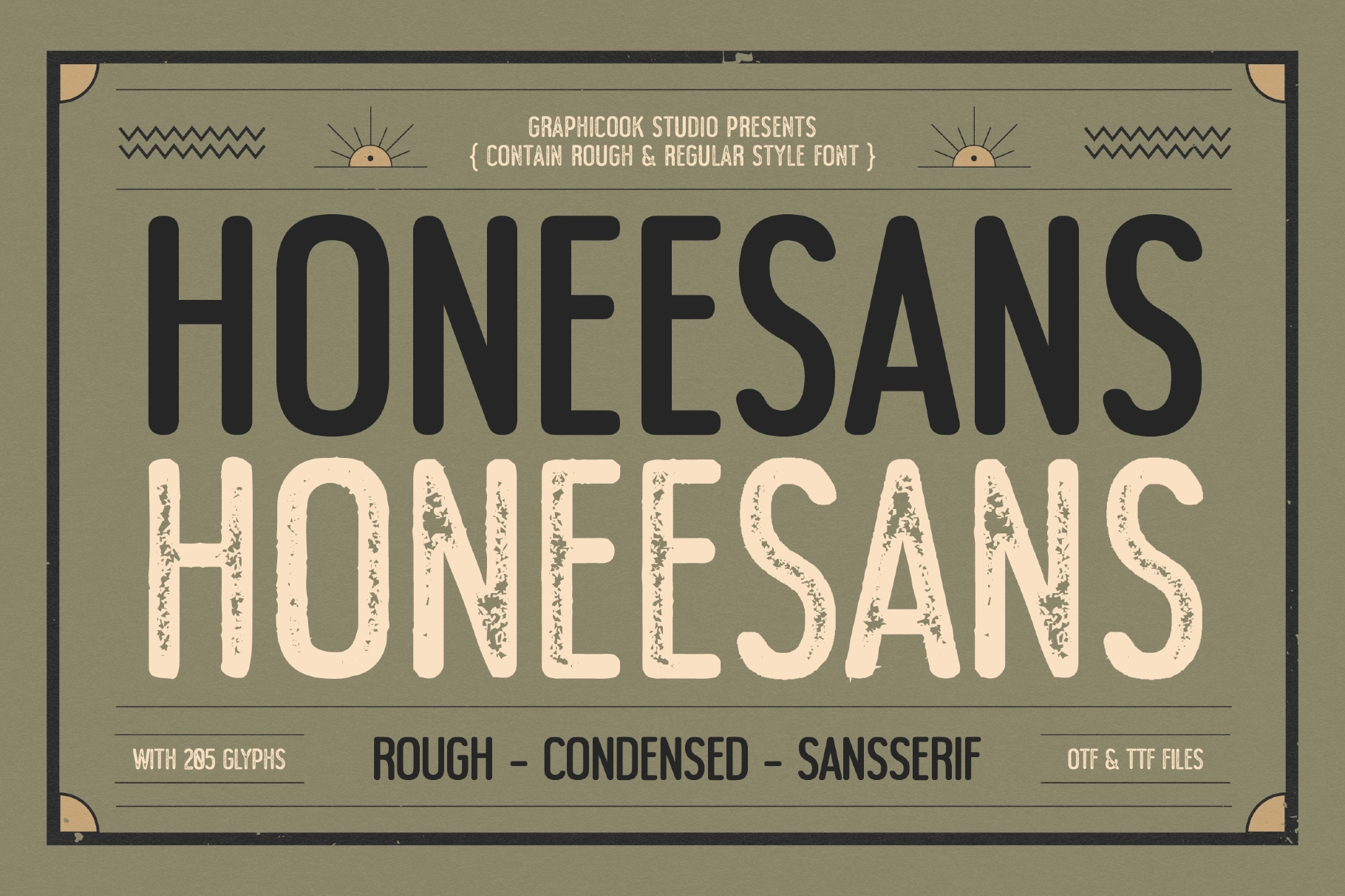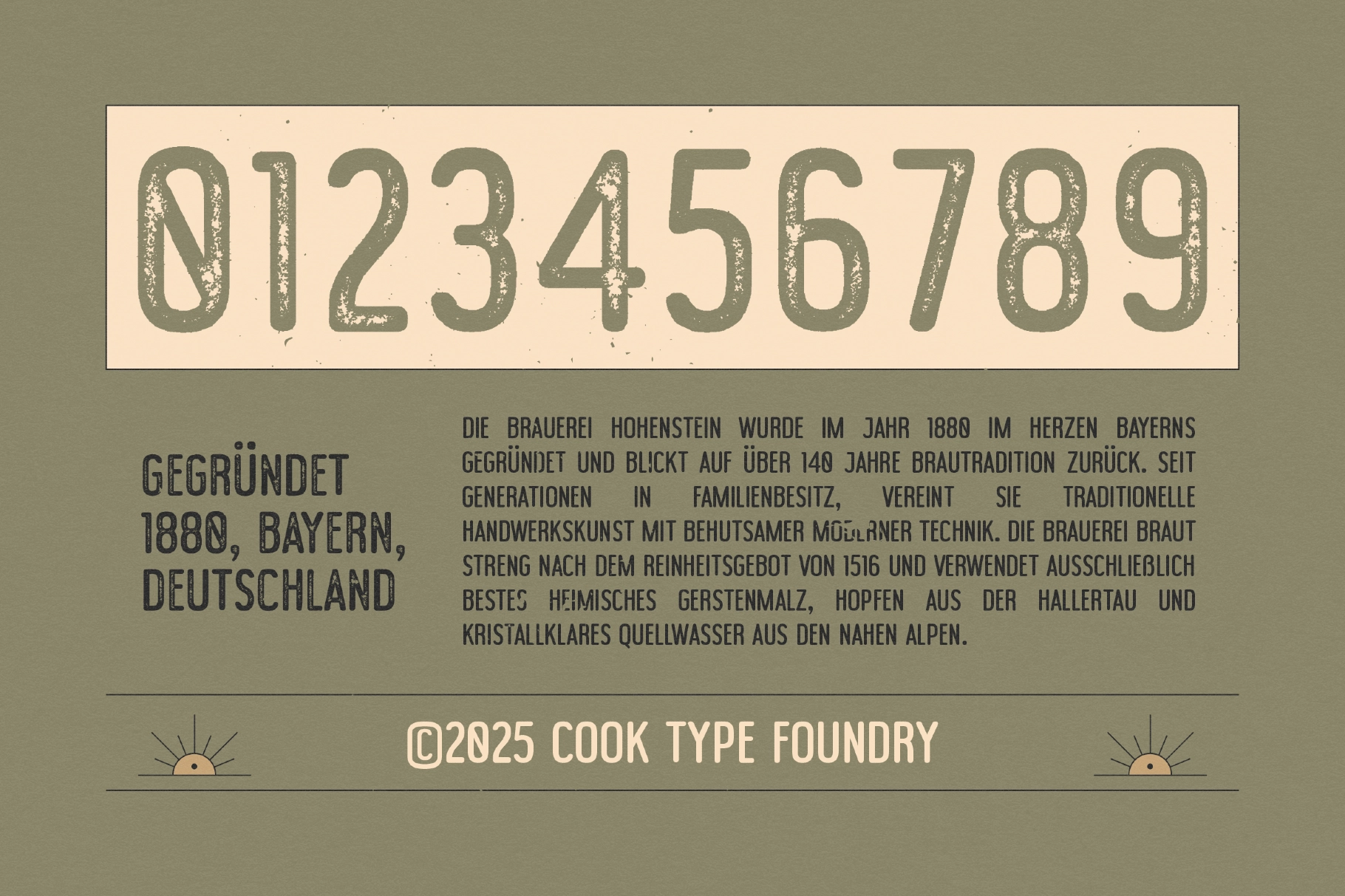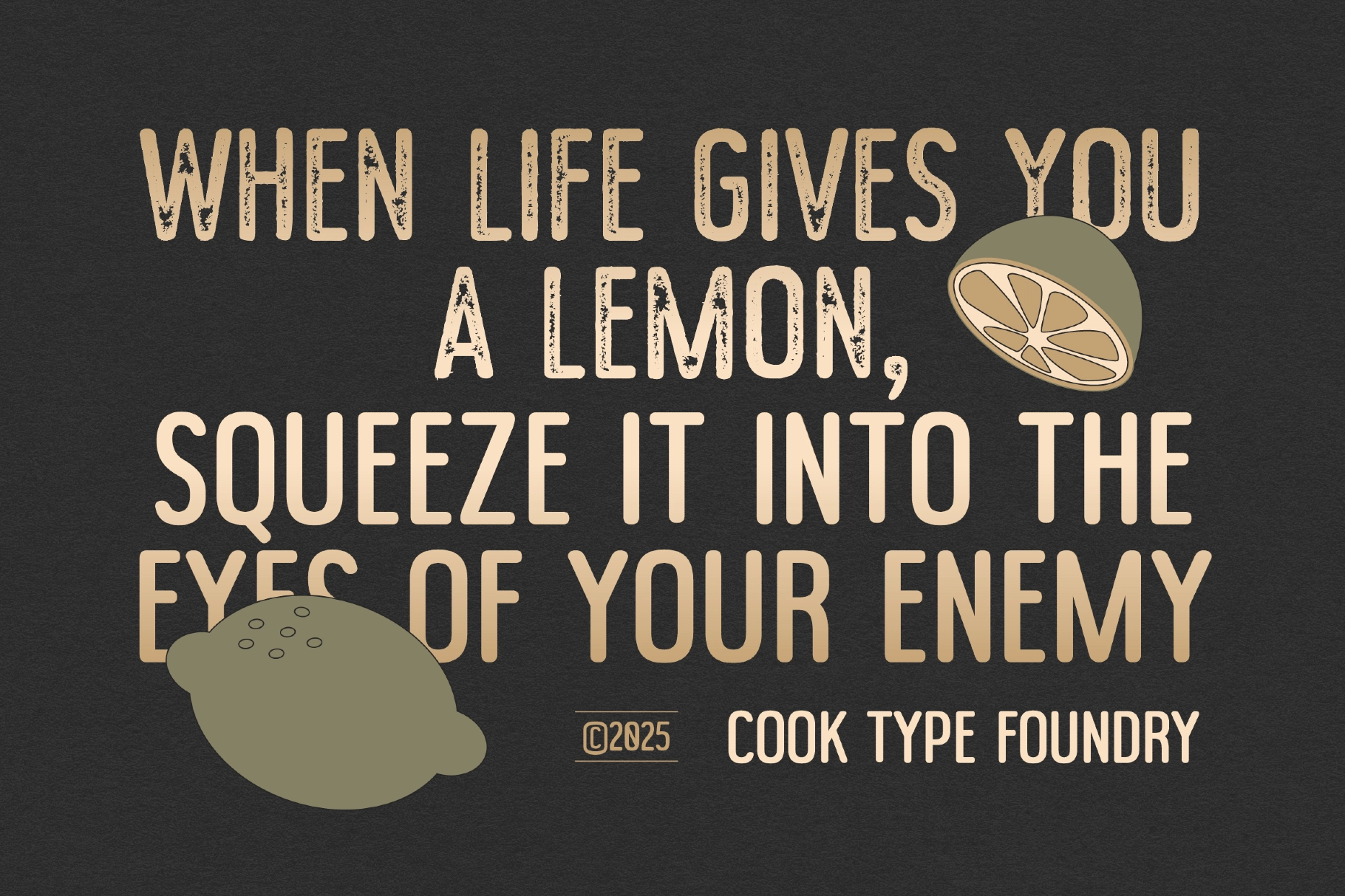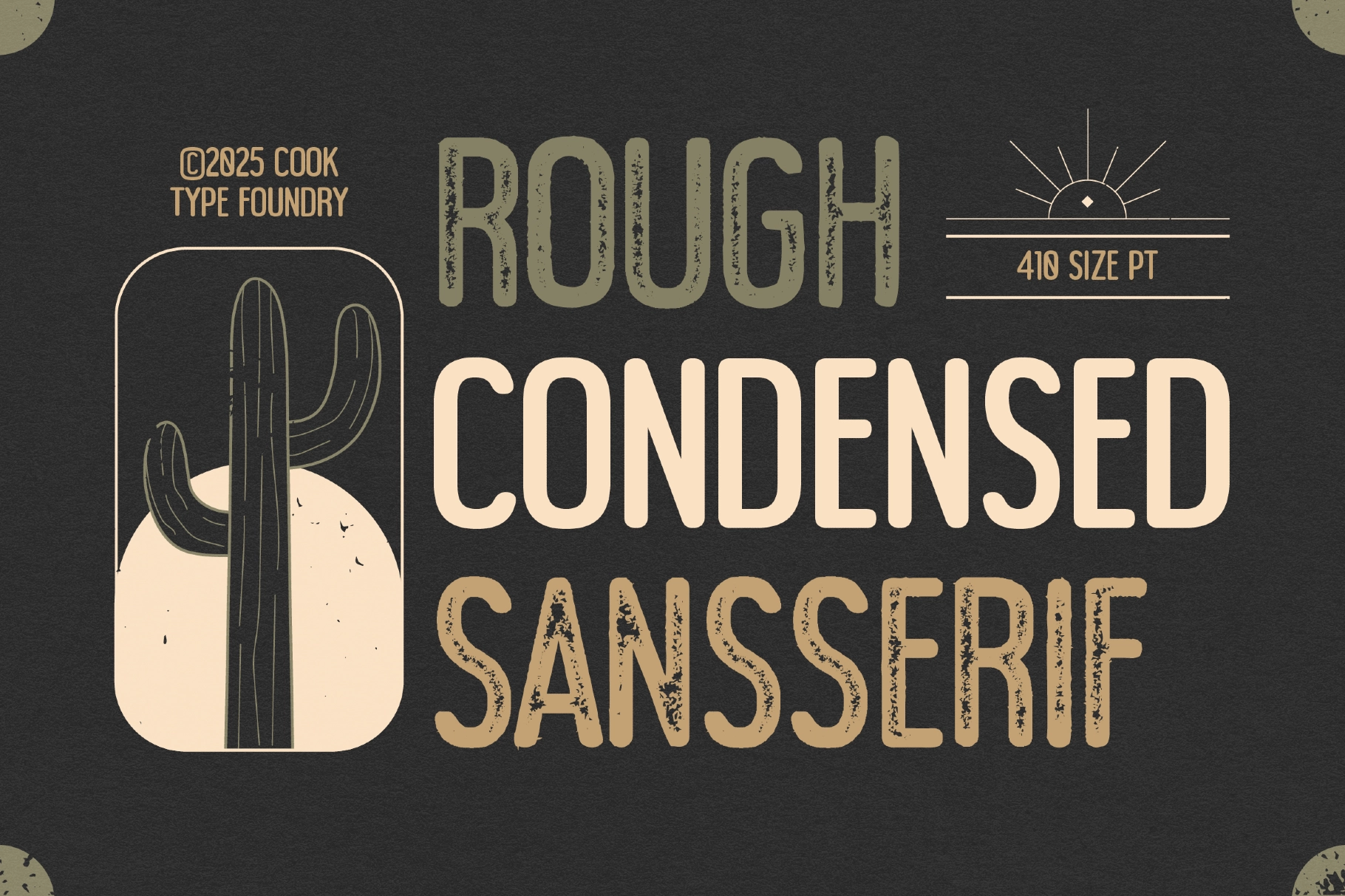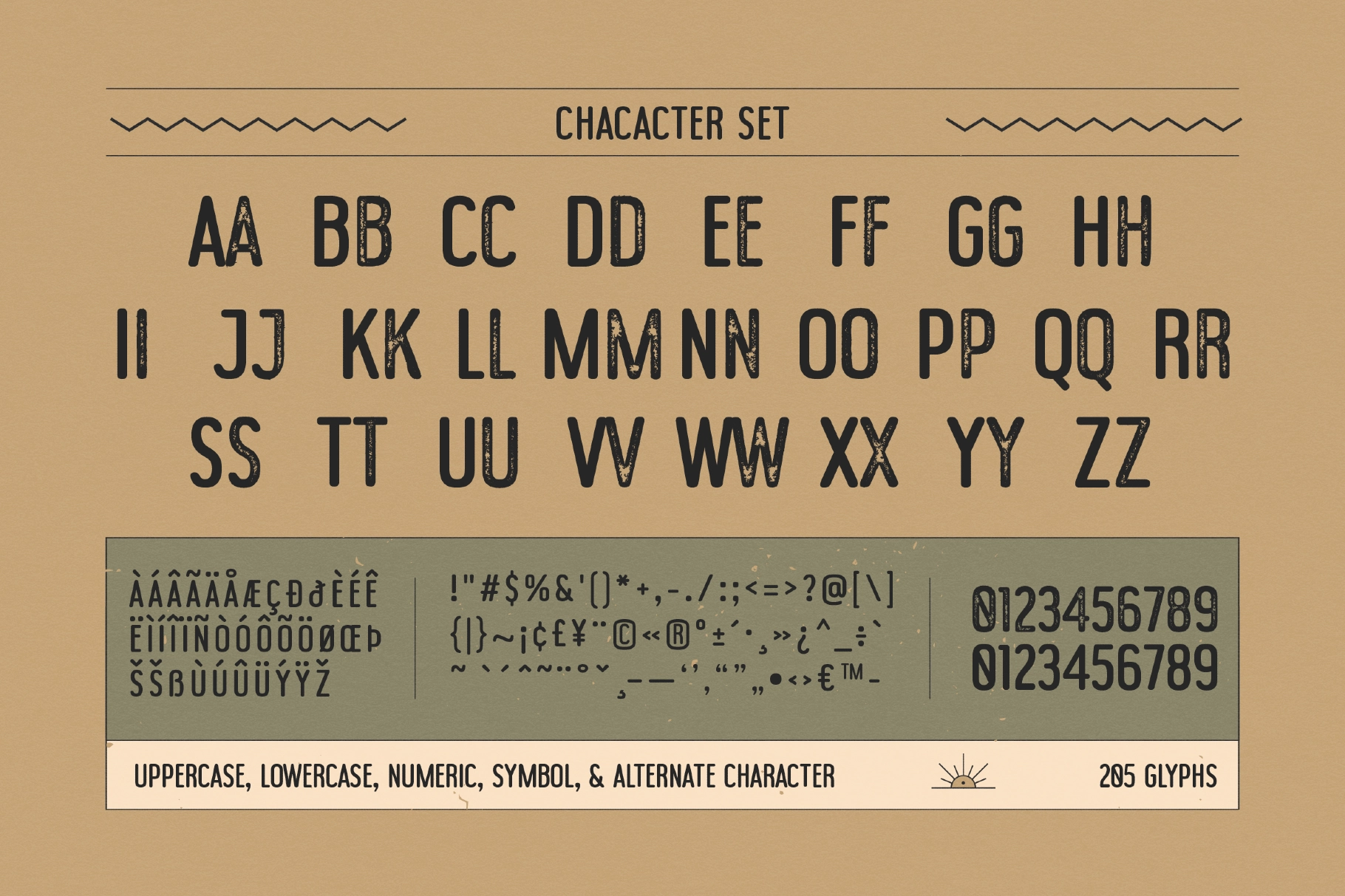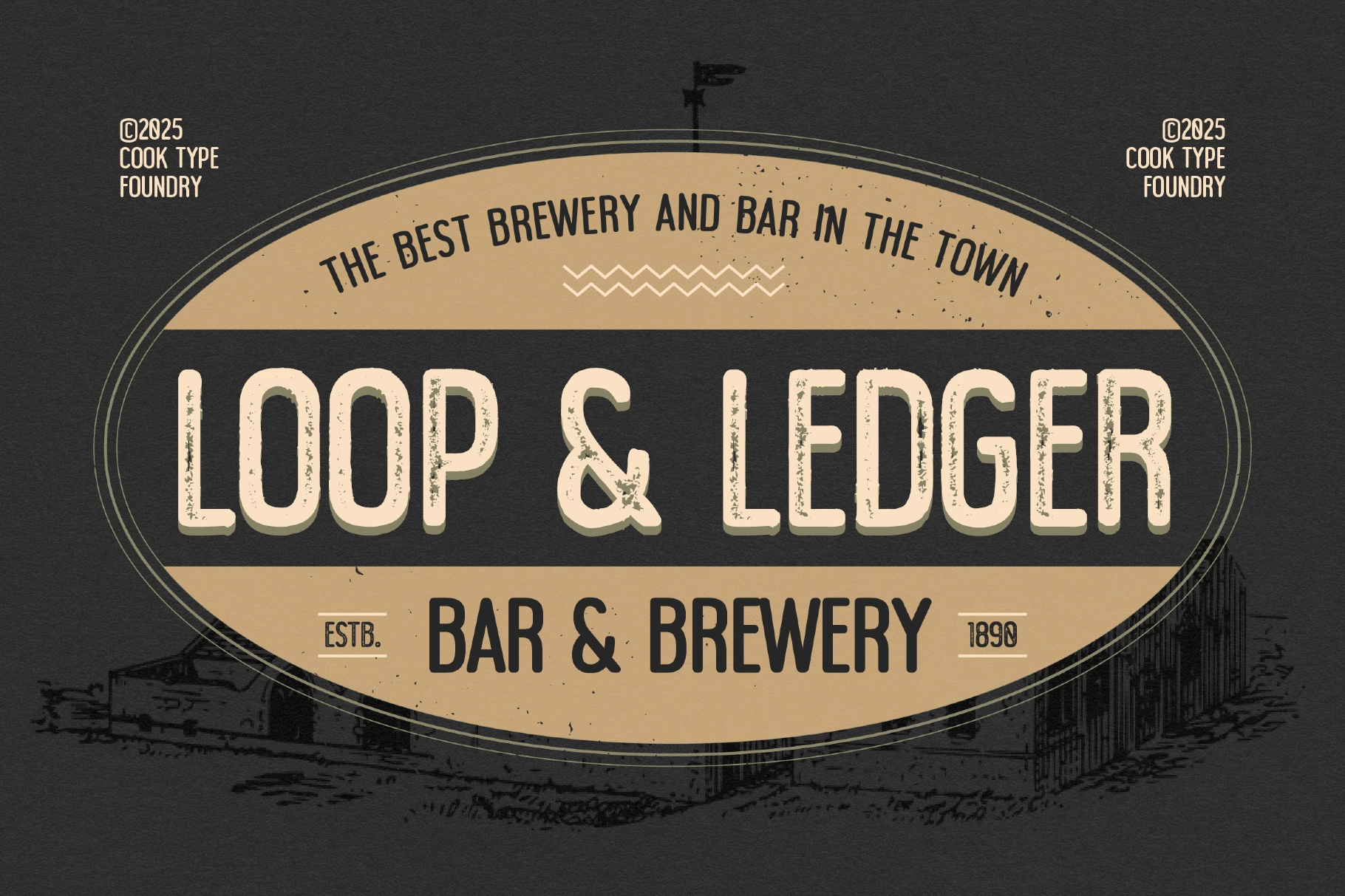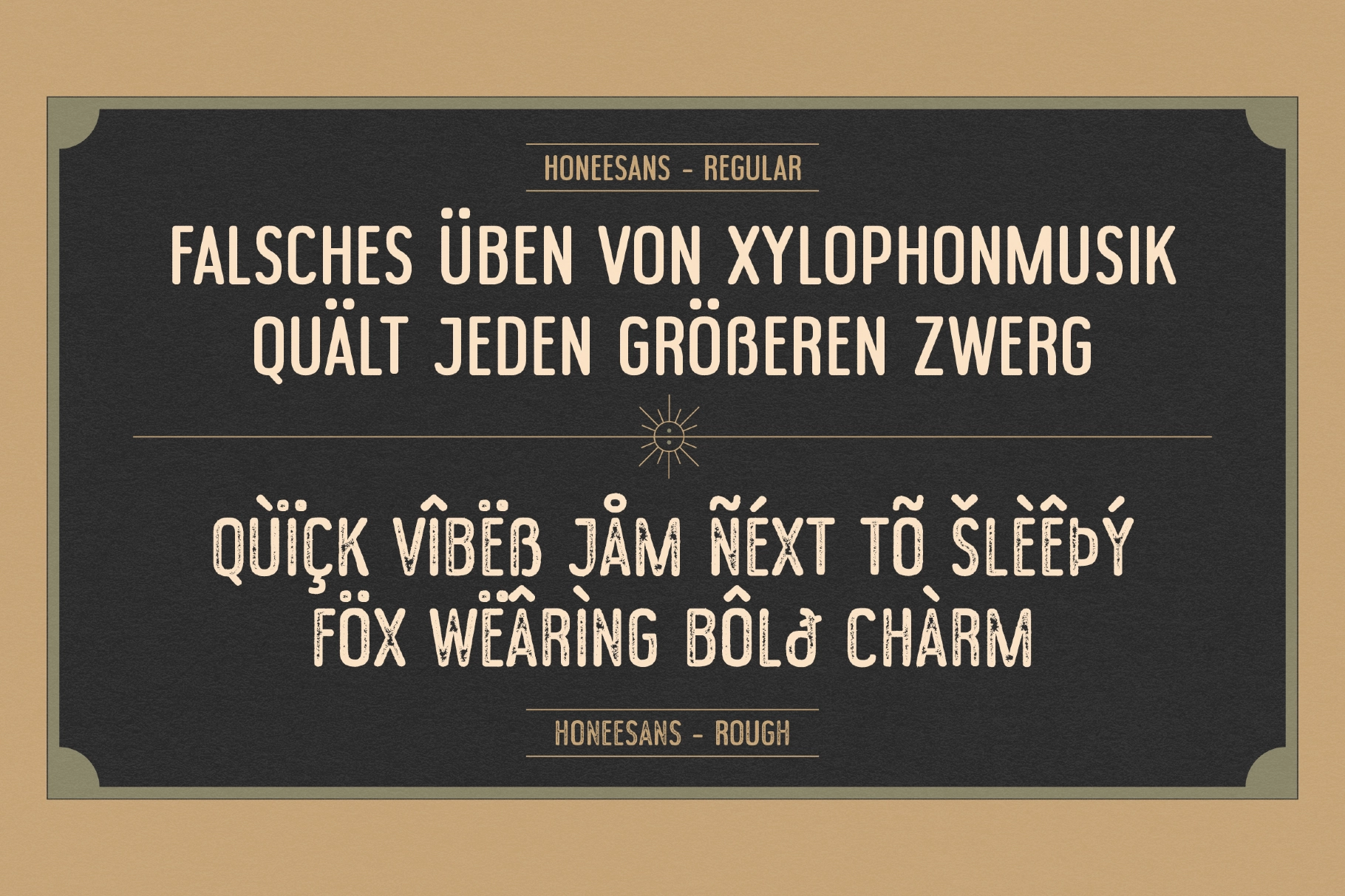
Honeesans
Rough
Honeesans is a condensed sans serif typeface featuring both regular and rough styles, offering flexibility for everything from sleek modern looks to textured retro aesthetics. Its clean yet distinctive letterforms make it ideal for branding, packaging, editorial work, and vintage inspired projects.